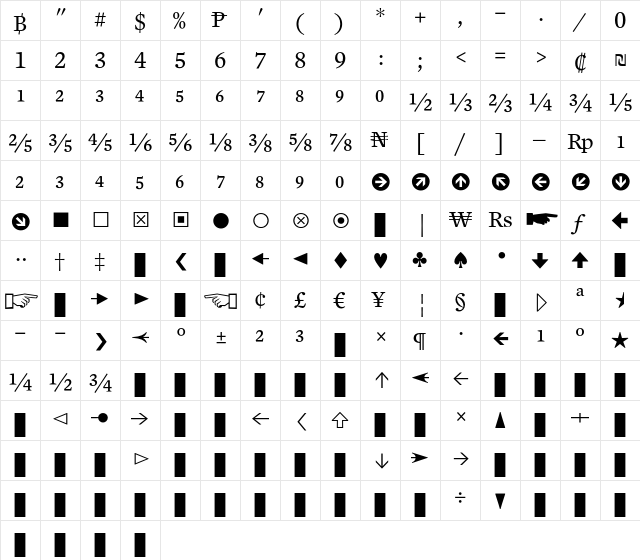
Mercury Numeric G2 Roman
Design Context for Mercury Numeric G2 Typeface
Mercury Numeric G2 takes a measured approach to typography — its balanced proportions and neutral character make it a reliable workhorse for both digital and print work.